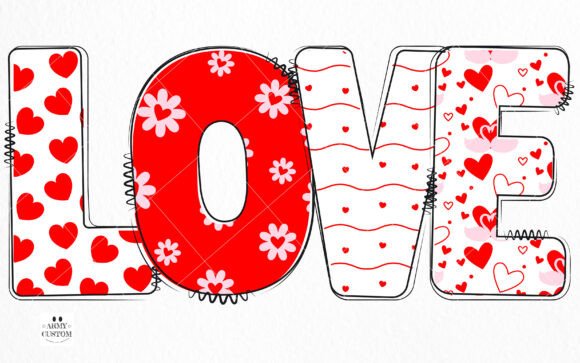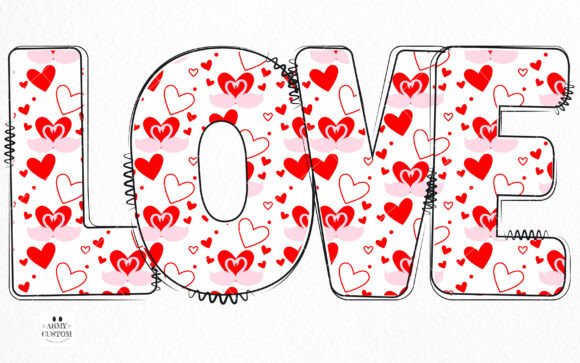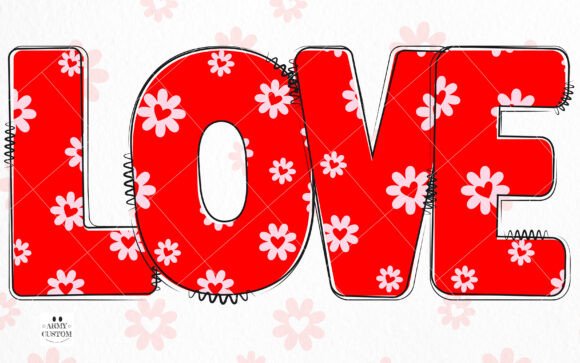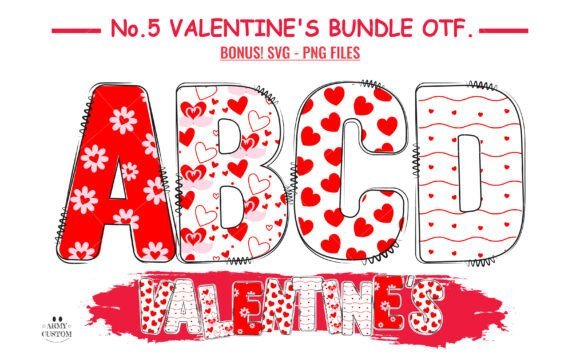
Introduction to Love Valentine’s Bundle Font
Experience the essence of romance with the captivating β€œNo.
5 Valentine’s Army Bundle” font Each line of this unique doodle font weaves a romantic narrative, creating a stunning tool for communicating your heartfelt sentiments on the day committed to love.
Key Features of Love Valentine’s Bundle Font
Why Choose Love Valentine’s Bundle Font?
Love Valentine’s Bundle Font offers exceptional quality and versatility, making it a valuable addition to your design toolkit. Whether you’re creating for personal projects or commercial use, Love Valentine’s Bundle Font delivers professional results.